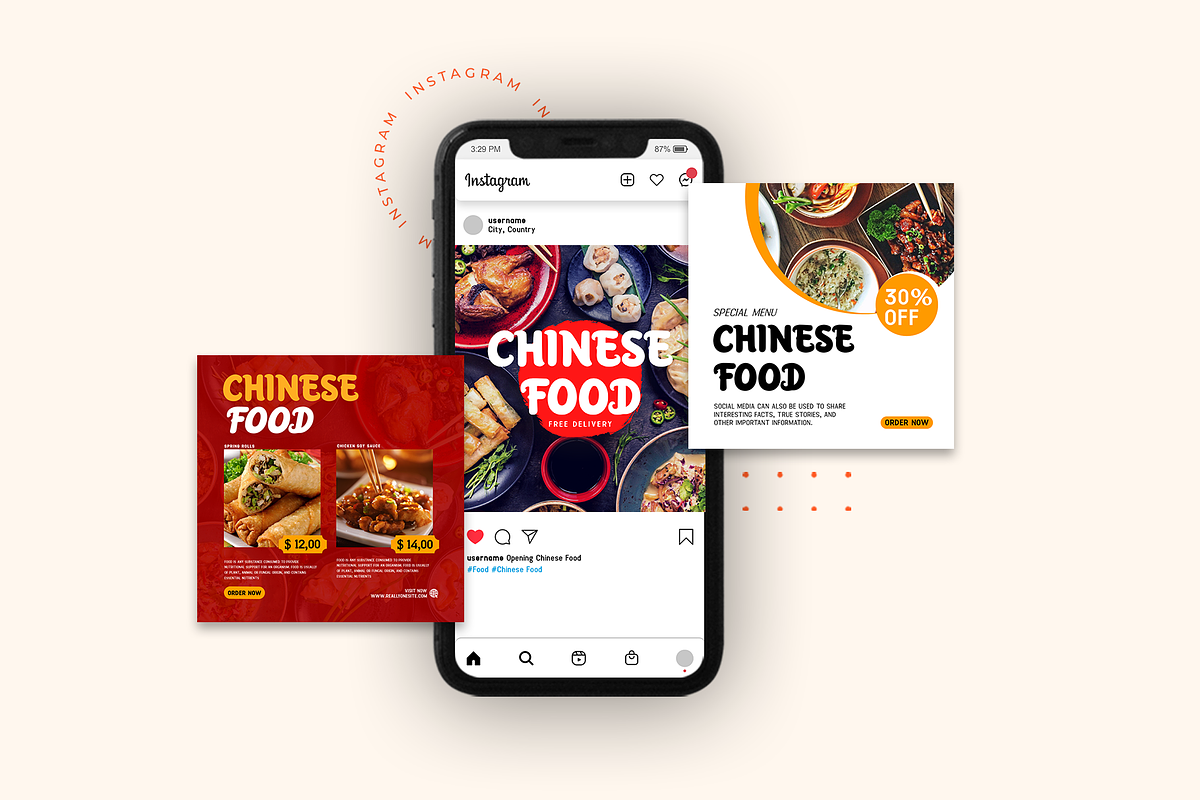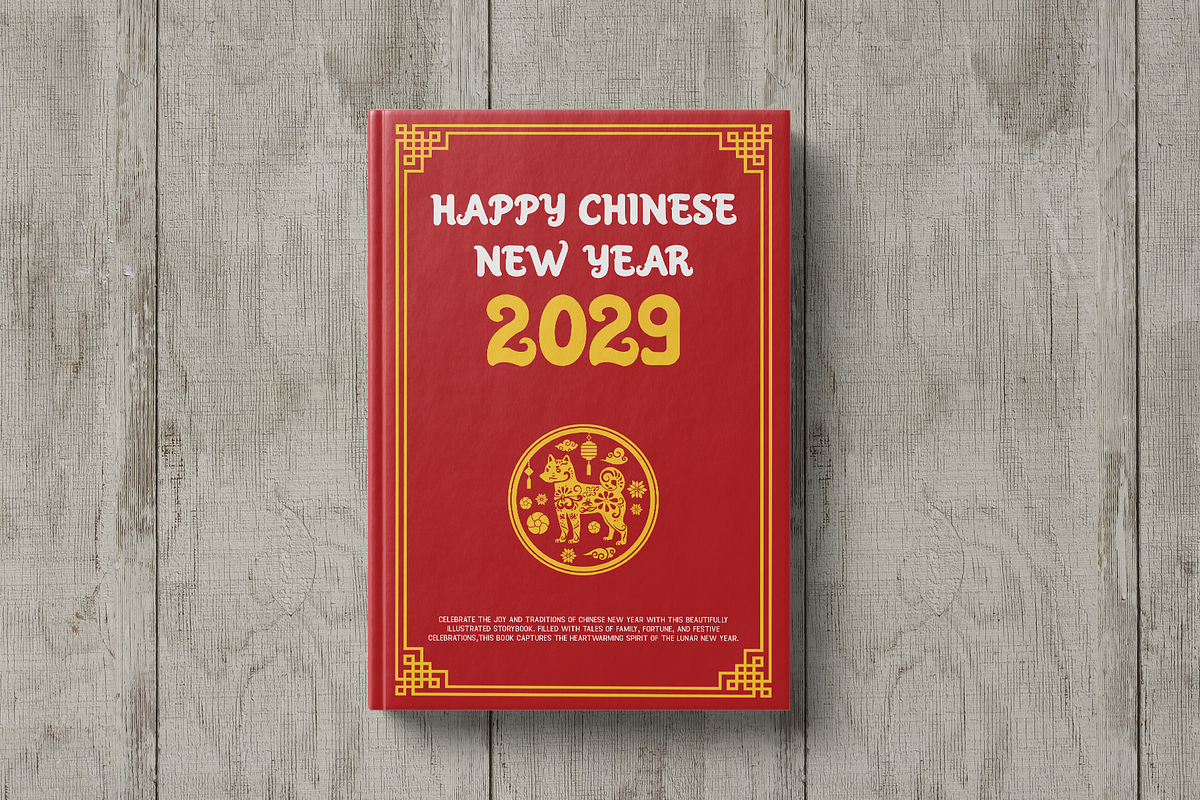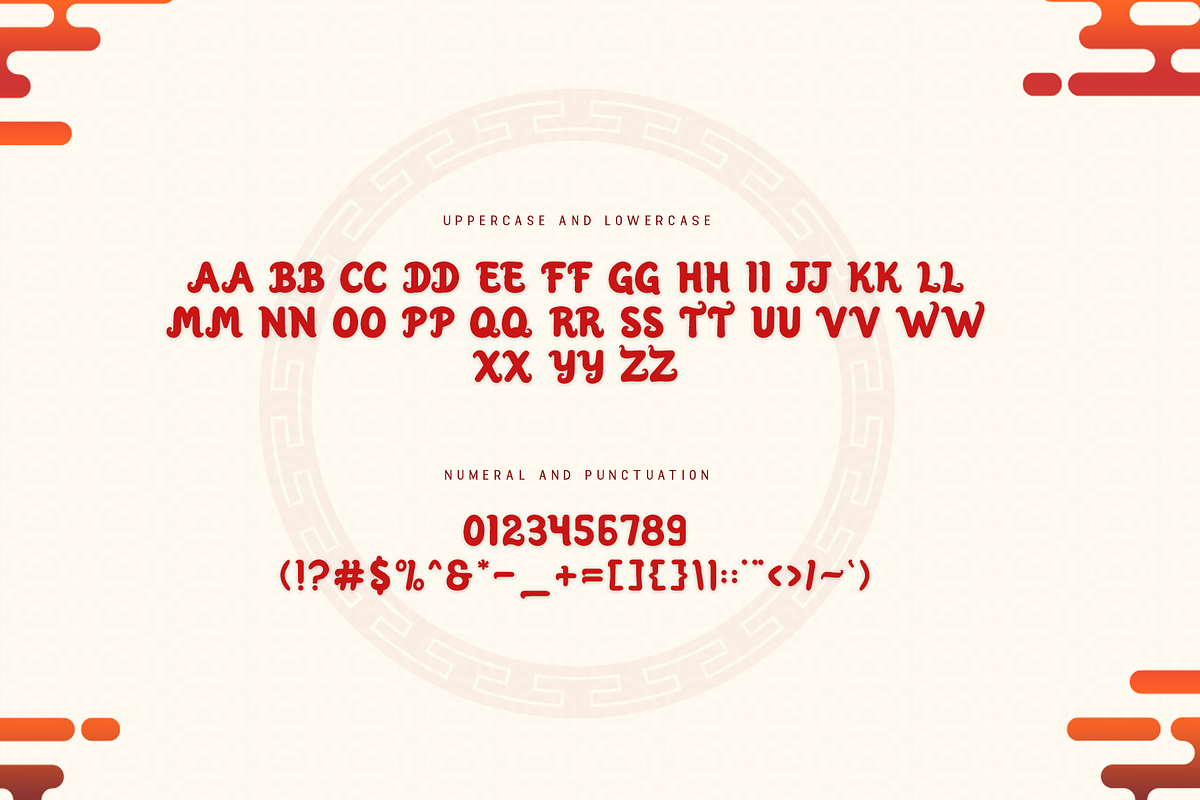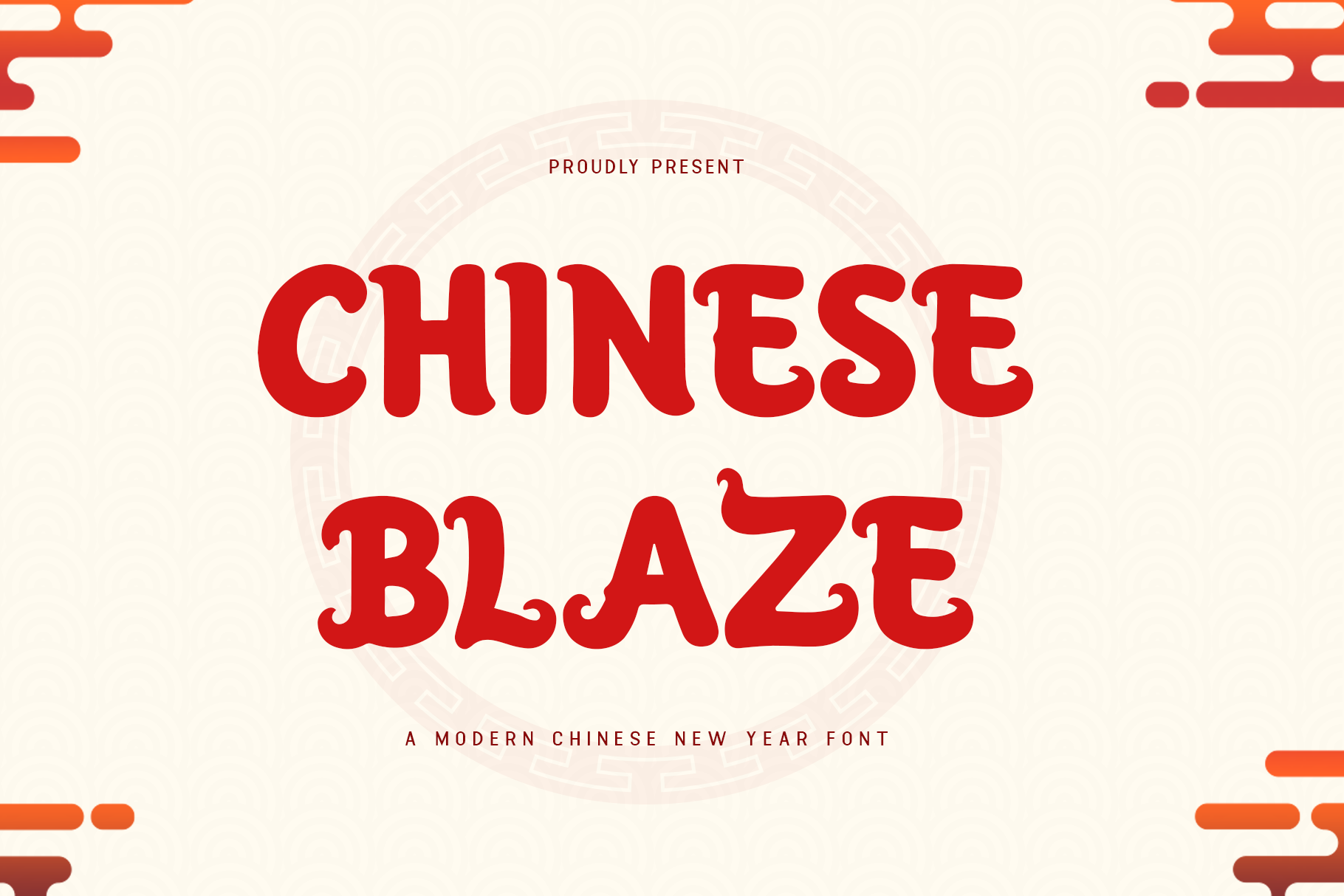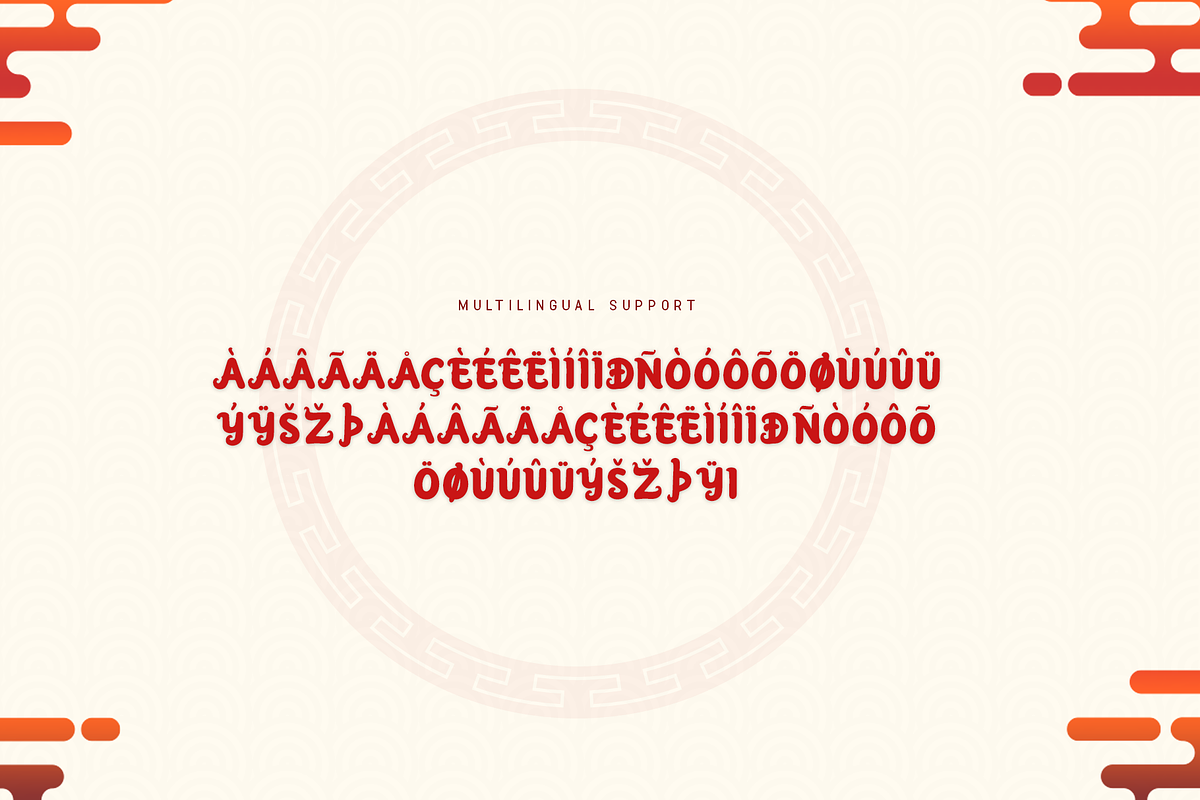
Chinese Blaze - Modern Chinese Font
Chinese Blaze - A Modern Chinese New Year Font
Introducing Chinese Blaze, a modern font that captures the intensity and vibrancy of the Lunar New Year. Inspired by the fiery spirit of celebration, this typeface features bold, sharp strokes that make a statement in any design.
Whether you're working on event posters, invitations, branding, or promotional materials, Chinese Blaze brings power, excitement, and energy to your projects. Its dynamic style embodies the festive spirit of the Chinese New Year, symbolizing good fortune and a fresh start.
With a complete character set, multilingual support, and versatile design, Chinese Blaze is your go-to font for making your Chinese New Year designs burn brightly.